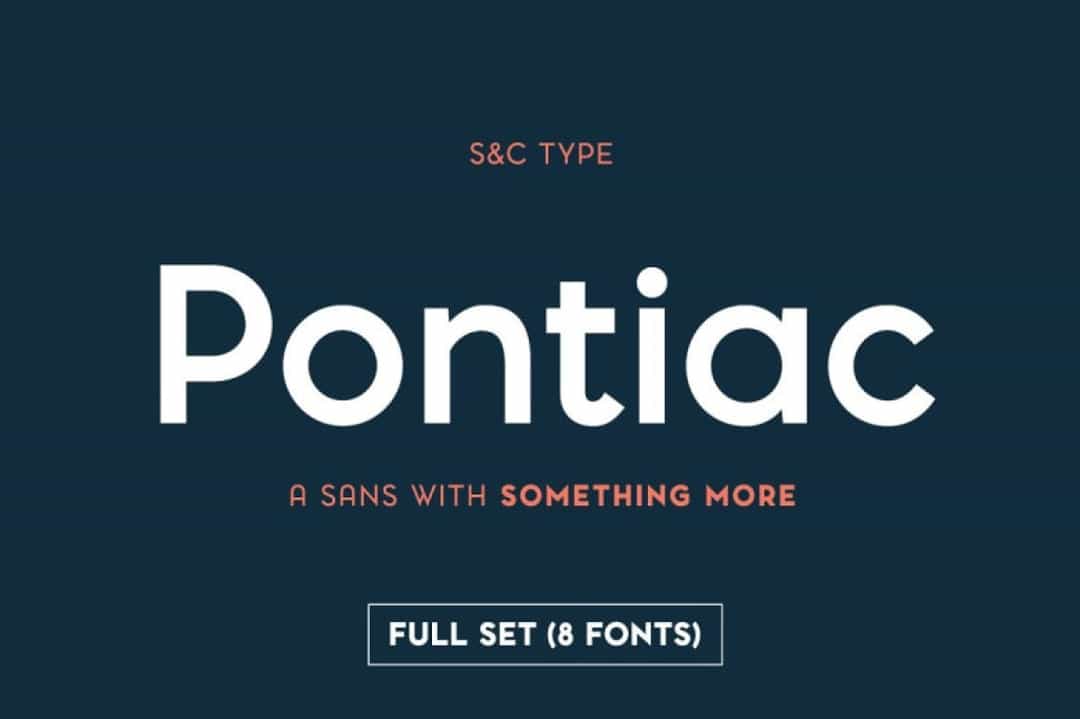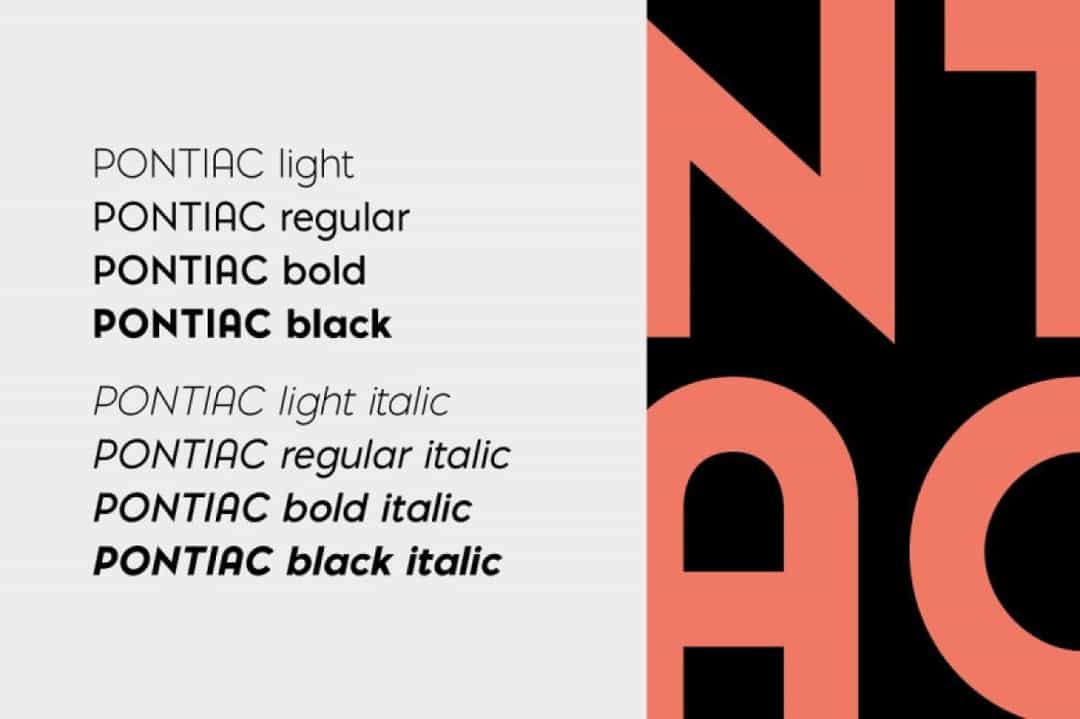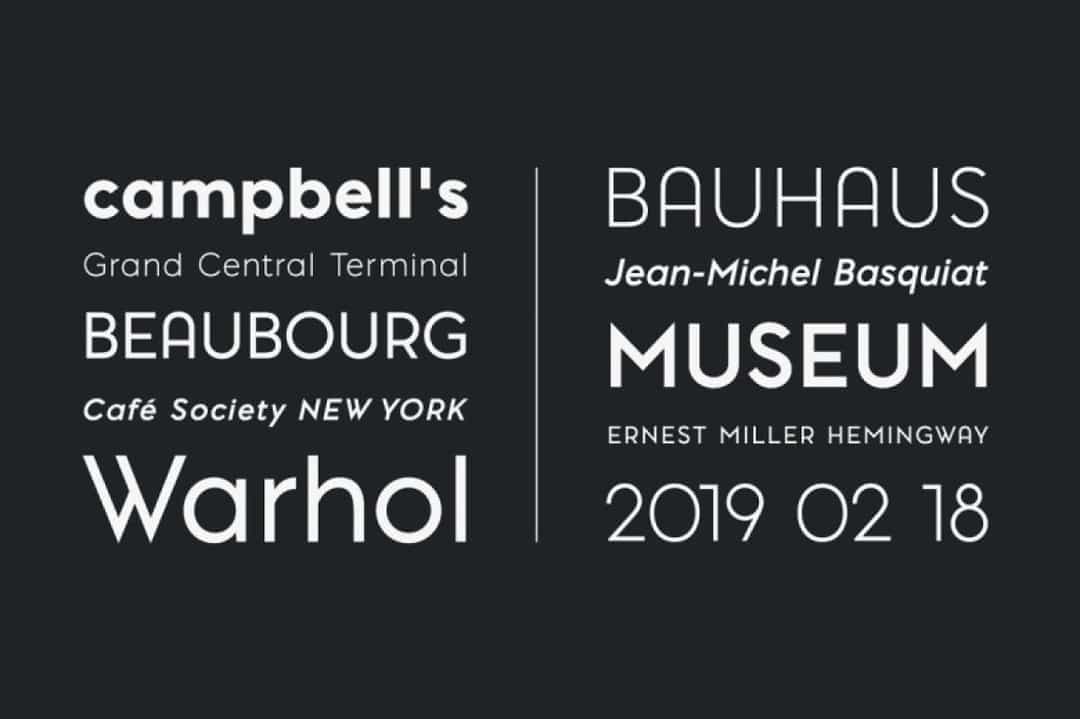
Pontiac, designed by Fanny Coulez and Julien Saurin in Paris, is an openType sans-serif font with its roots in Akzidenz Grotesk and Neutra; yet with something warmer in between. More geometric yet human in its composition, Pontiac exudes Frenchness through its design.